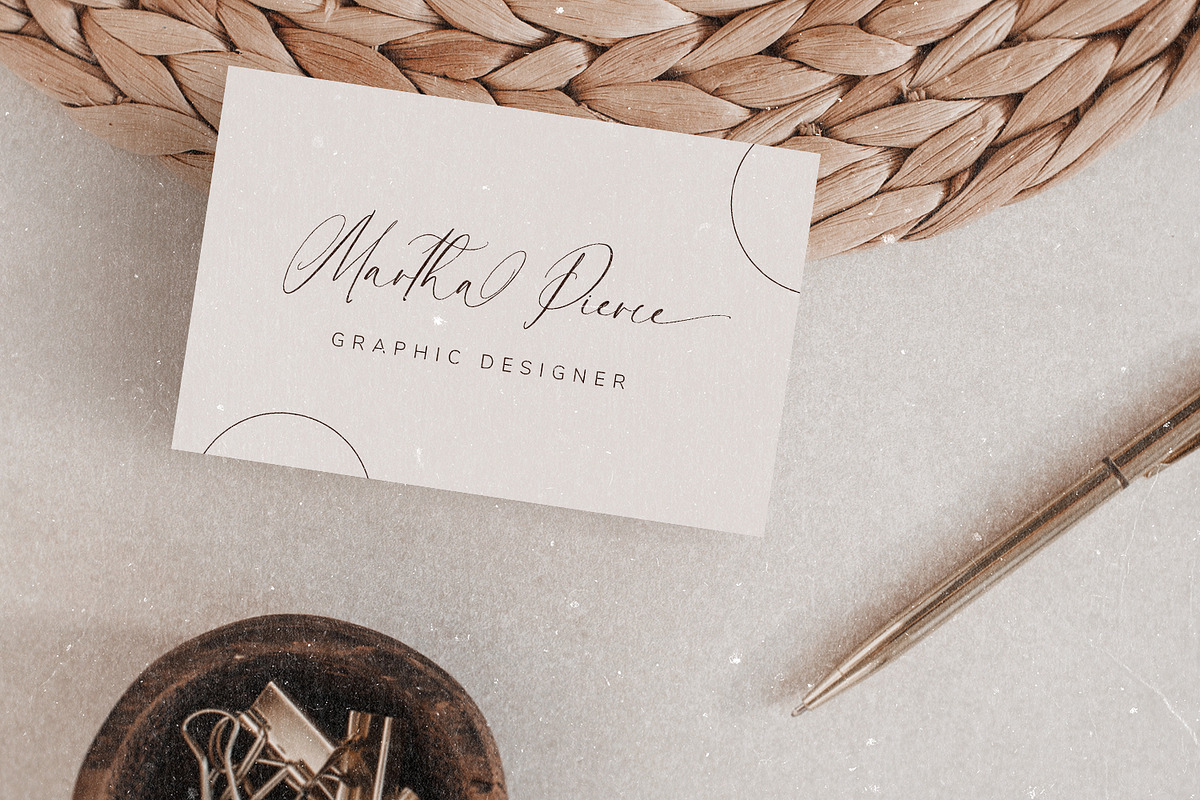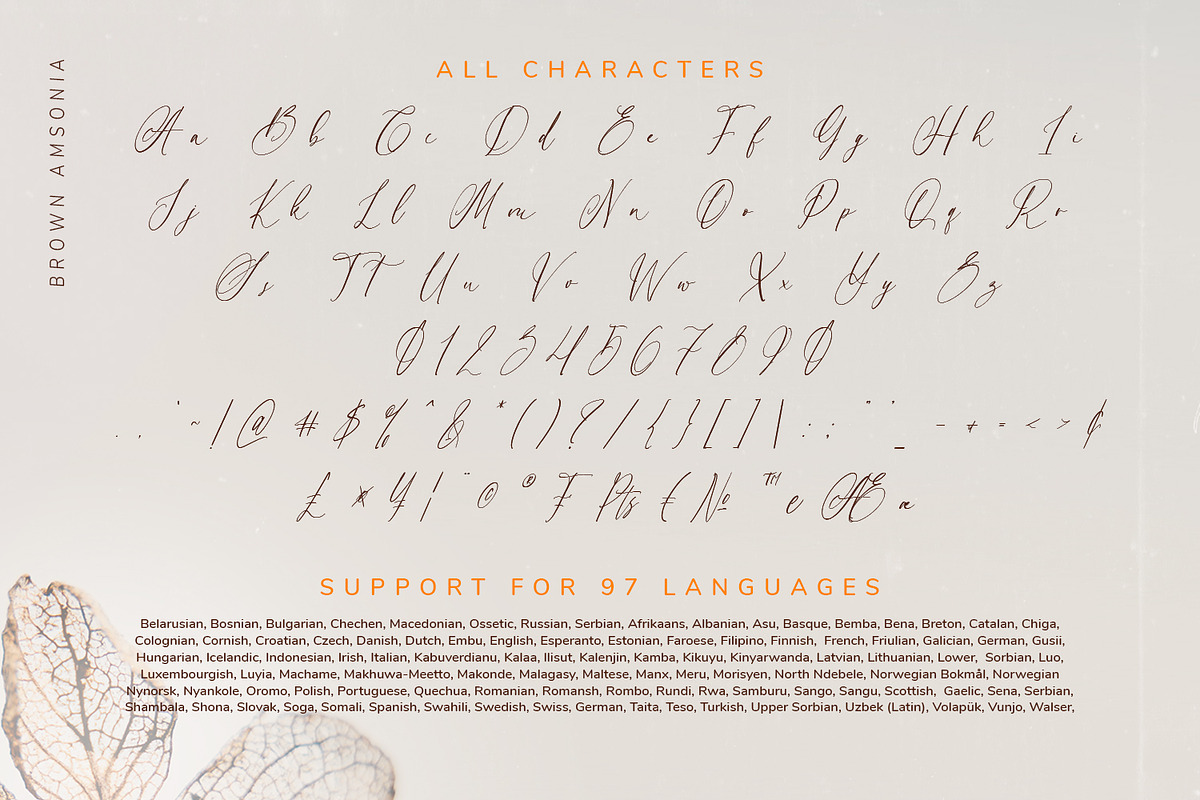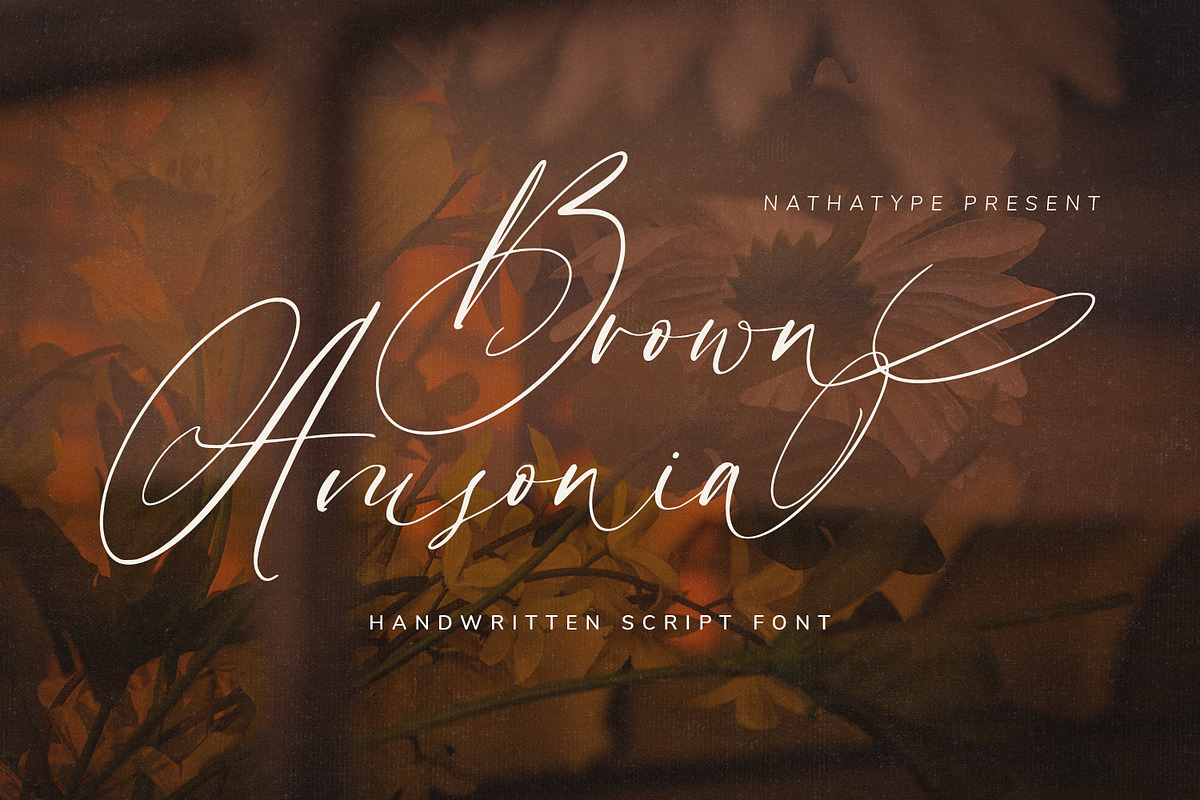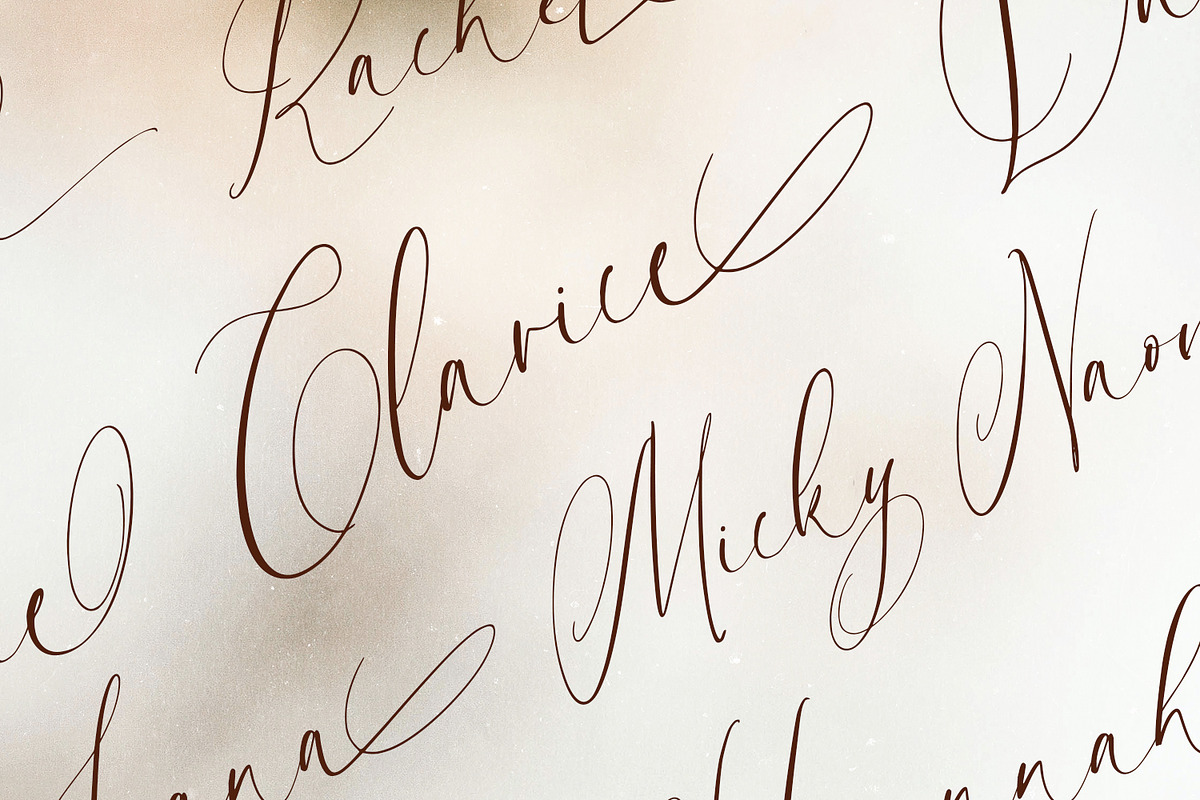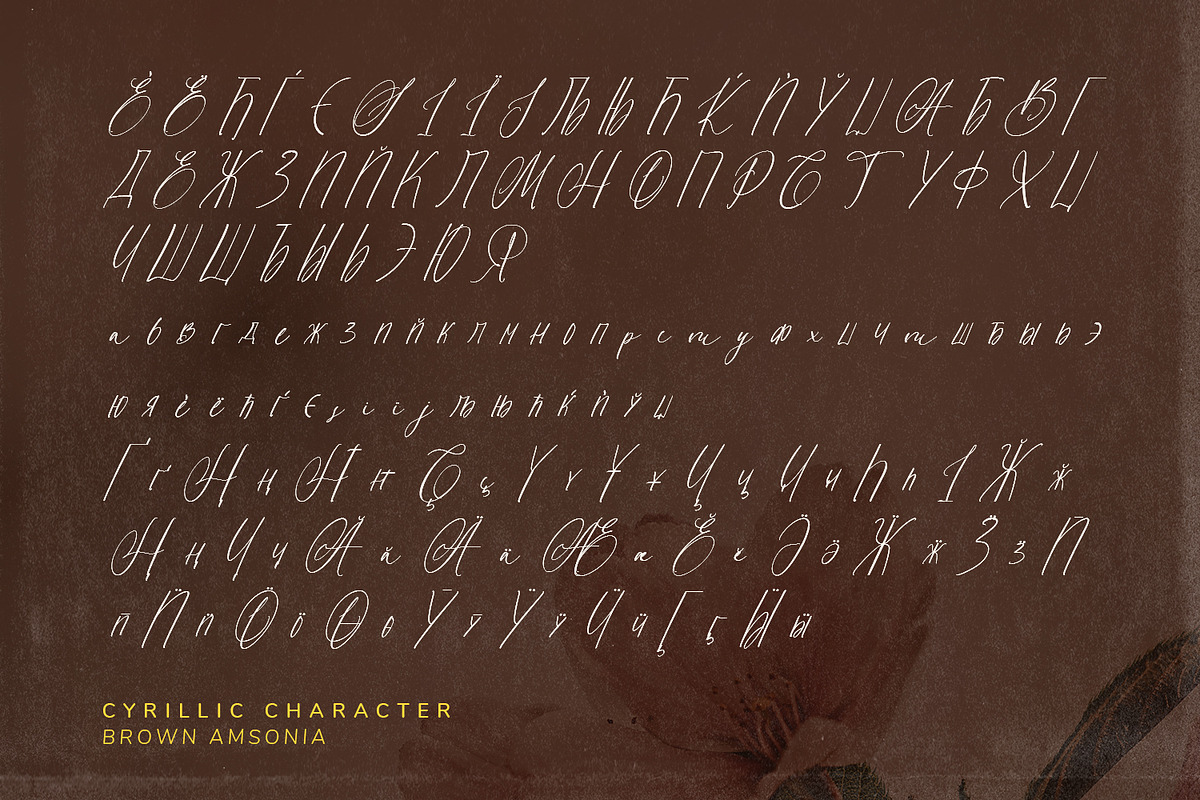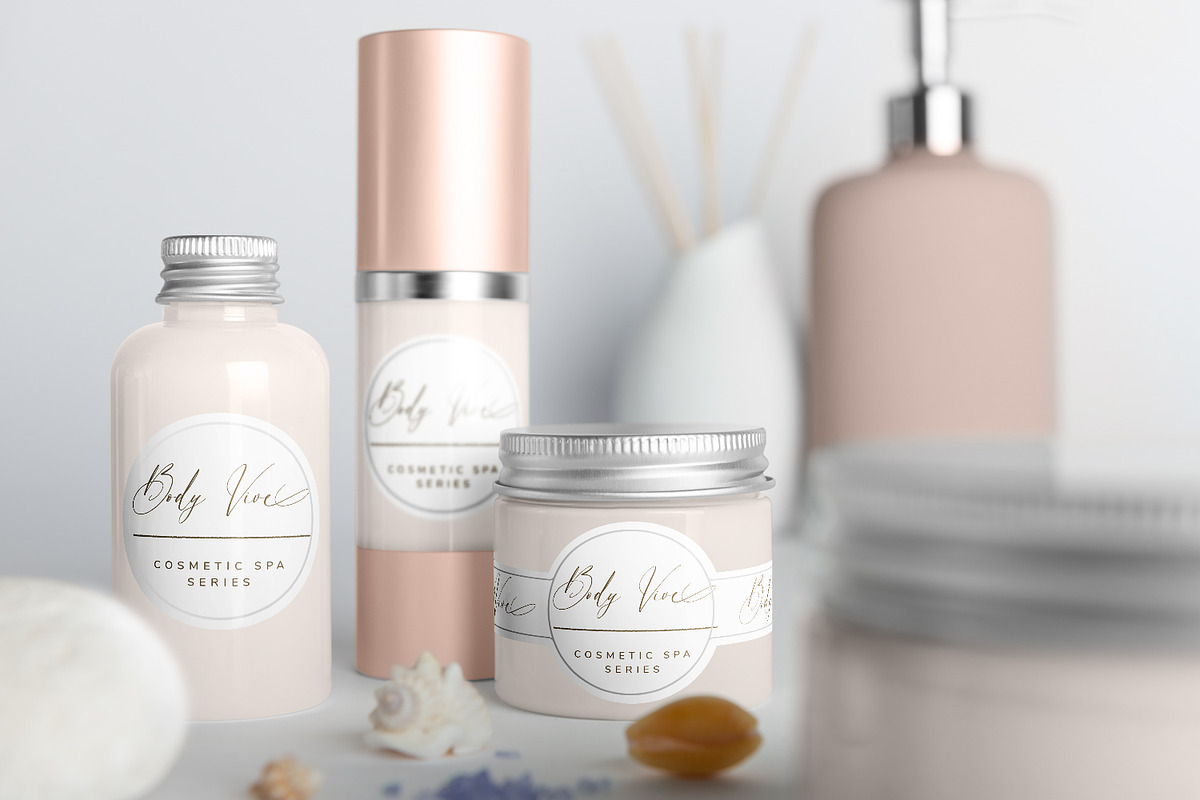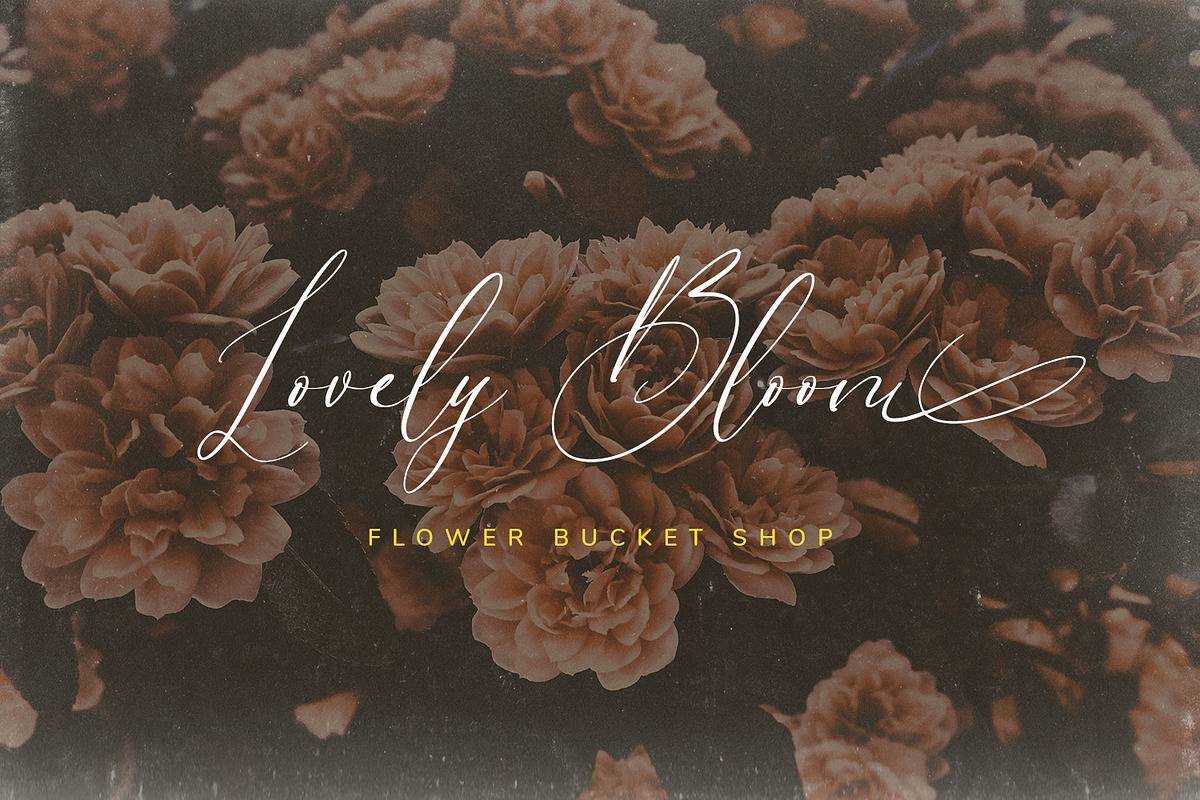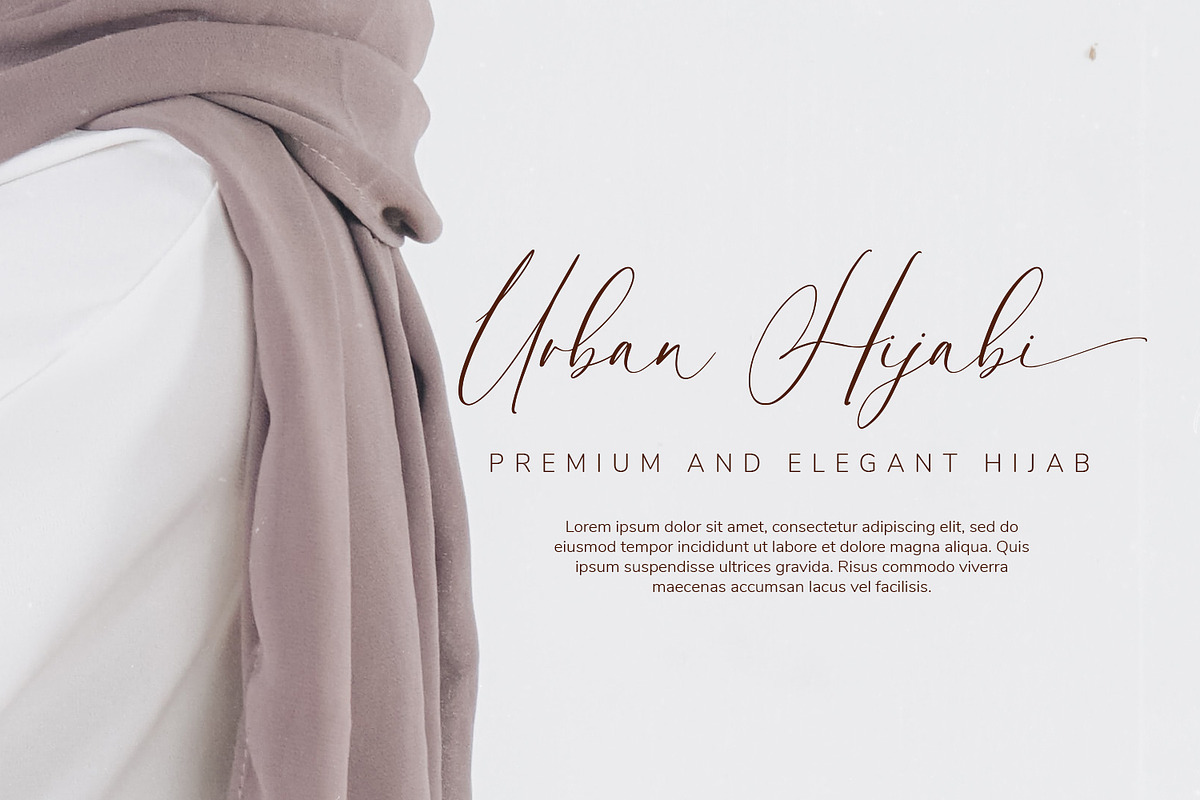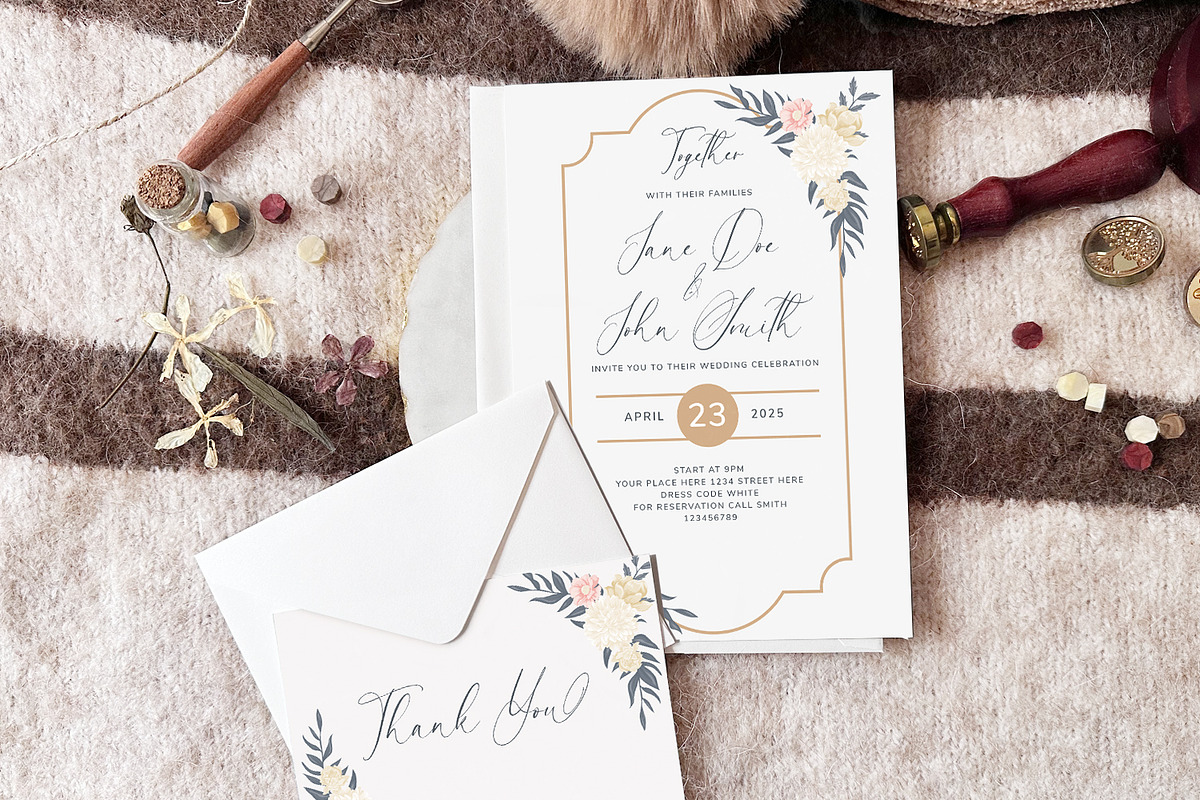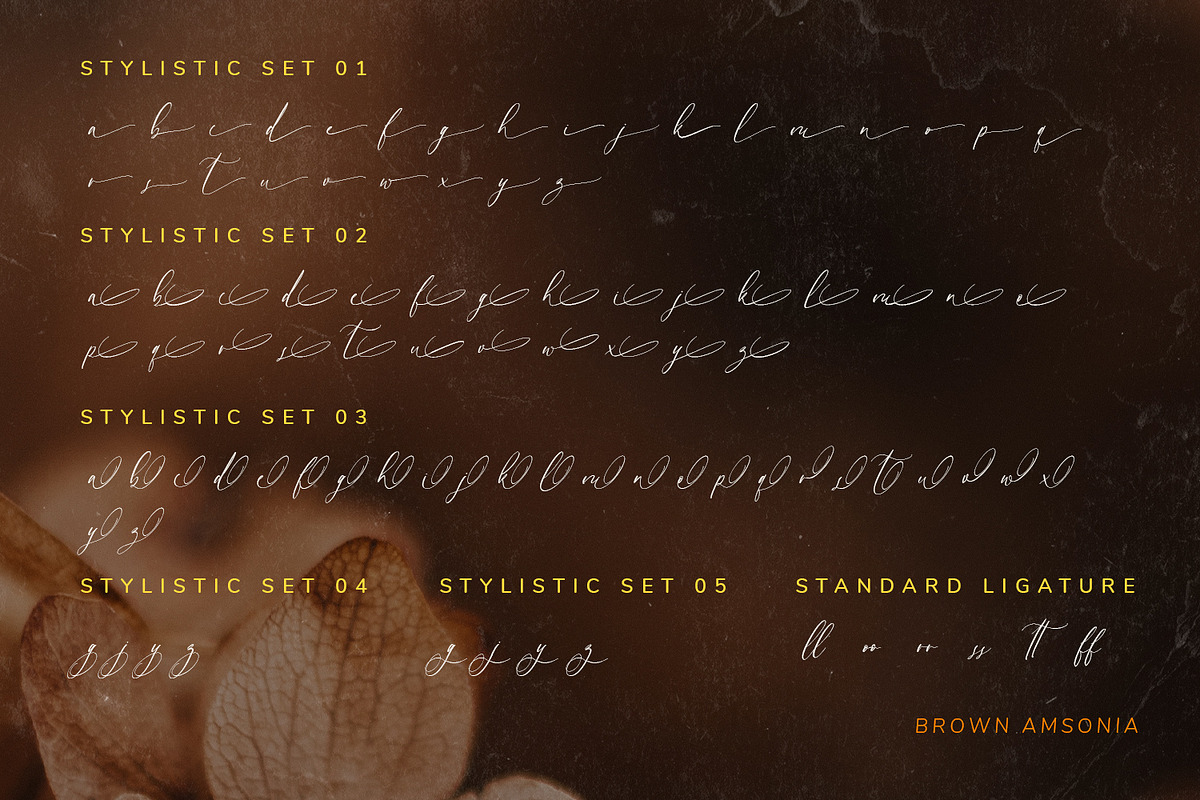
Brown Amsonia
Brown Amsonia is a lovely script font of which letters are in handwriting to express unique, personal nuances in your designs. Such a handwriting font is available in high contrasts having noticeable differences between the bright and the dark letter parts to produce clear, firm displays making the designs look professional and modern.
Besides, Brown Amsonia can express personal, artistic displays to create more interesting, noticeable designs. The letters are interconnected and their details show sharp, curvy scratches on the edges. Due to the complex font style details, this font is better to apply for big text sizes. In addition, you may enjoy the available features here.
- Stylistic Sets
Brown Amsonia fits best for various design projects, such as brandings, invitations, greeting cards, name cards, quotes, printed products, merchandise, social media, etc. Find out more ways to use this font by taking a look at the font preview.